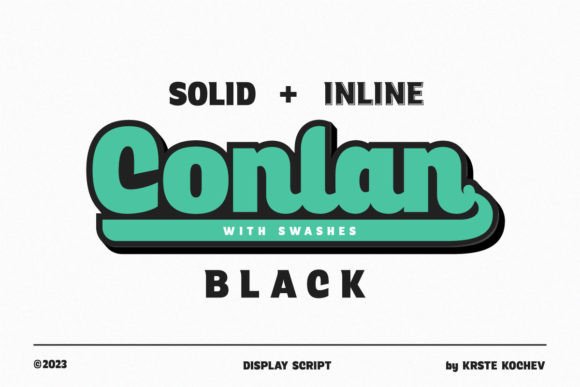
Introducing Conlan Black Font, the ultimate font for branding that combines the charm of the past with a modern twist. This exquisite script font boasts a heavy use of swashes, adding a touch of elegance and sophistication to your designs. Unleash your creativity with Conlan Black's extensive customization options, allowing you to tailor your designs to perfection.
With Conlan Black, you can create logotypes and headlines that leap off the page, capturing attention and leaving a lasting impression. Its striking design is perfect for crafting logos, branding materials, packaging, social media graphics, and more. Whether you're a seasoned designer or just starting out, Conlan Black is the font that will elevate your projects to new heights.
Transport yourself to a bygone era with Conlan Black's vintage aesthetic, while simultaneously embracing the cutting-edge appeal of contemporary design. This font is a true masterpiece that blends the best of both worlds.
Step into the spotlight with Conlan Black and let your designs shine brighter than ever before. Its captivating presence will leave an unforgettable mark on your audience, ensuring that your message is heard and your brand is remembered.
To unlock the full potential of Conlan Black, make sure your software supports OpenType features, granting you access to a world of alternate letters and endless possibilities. The font's versatility extends beyond its stunning appearance, making it suitable for a wide range of projects and industries.
Create designs that sizzle with personality and style using Conlan Black. This font is more than just a tool; it's an experience that will transform your designs and captivate your audience. Embrace the power of Conlan Black and let your creativity soar!